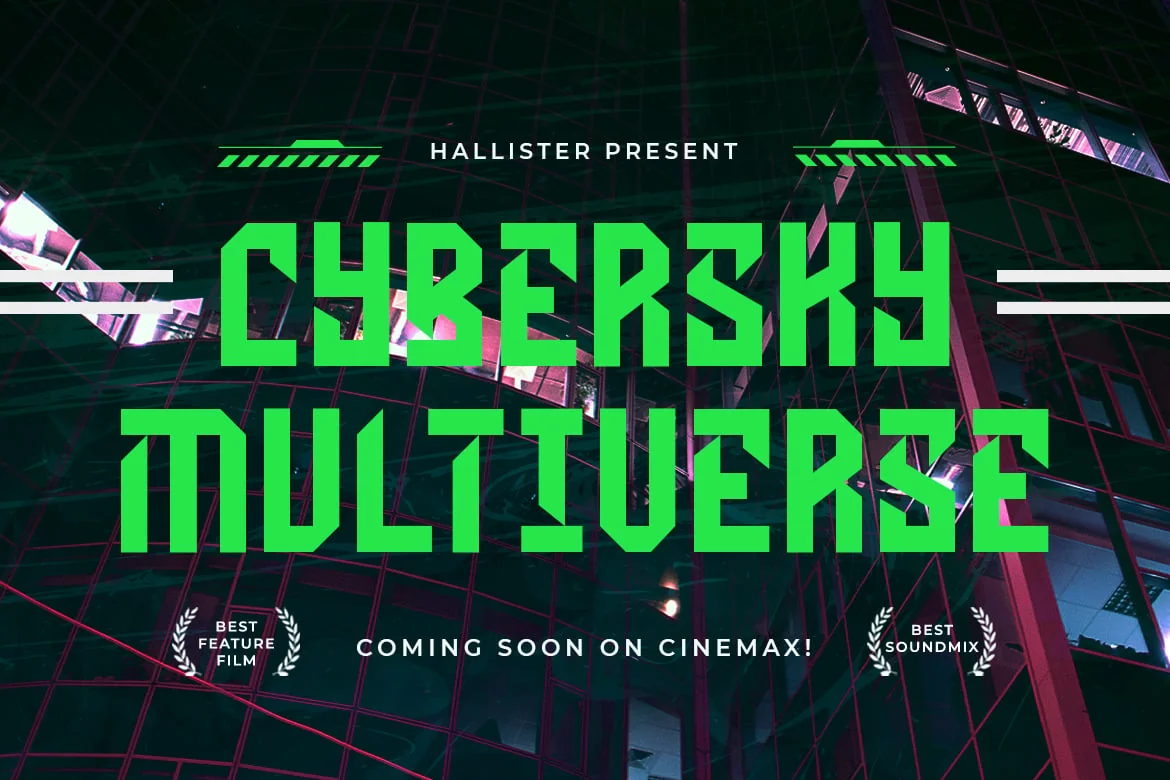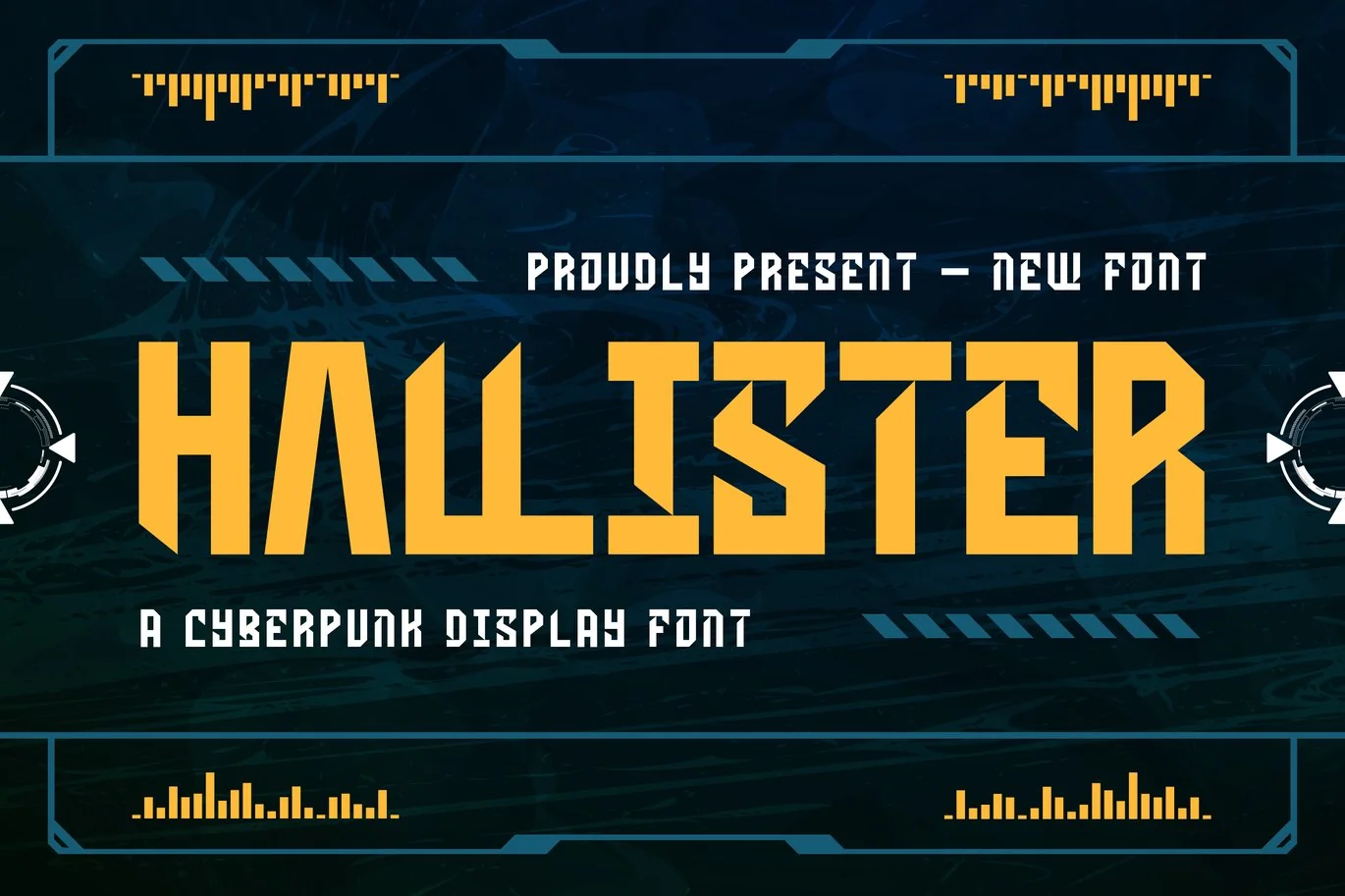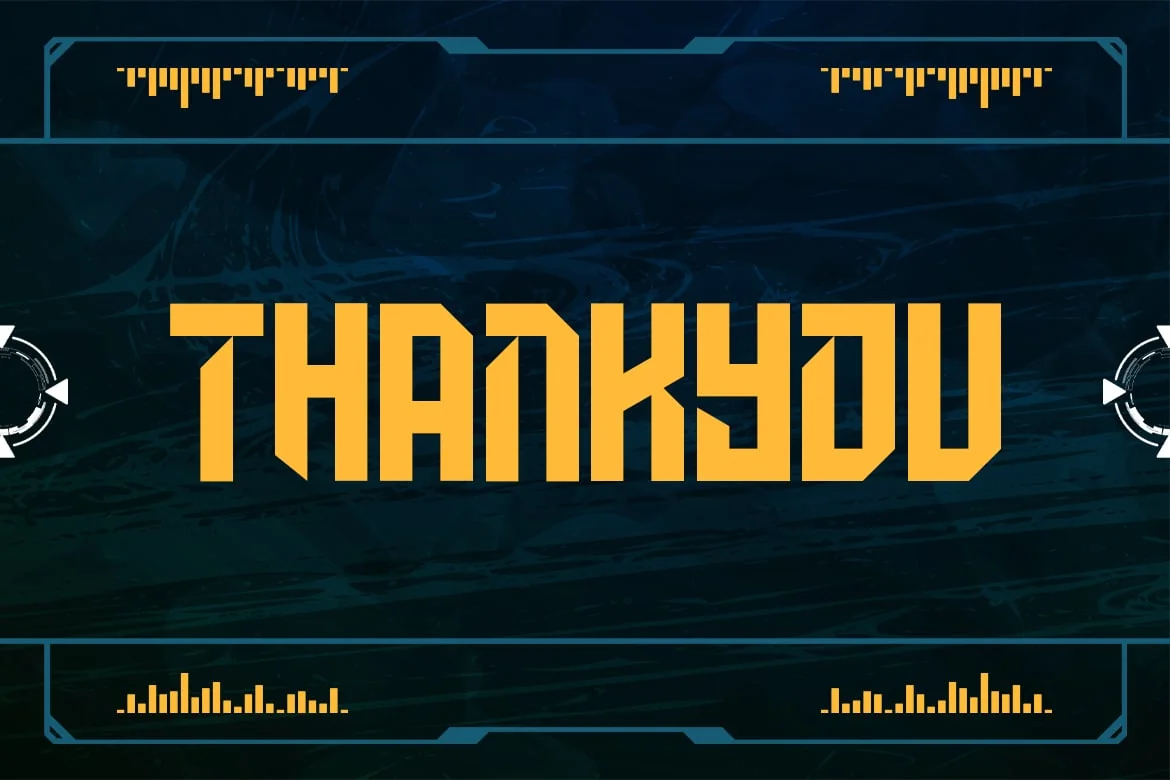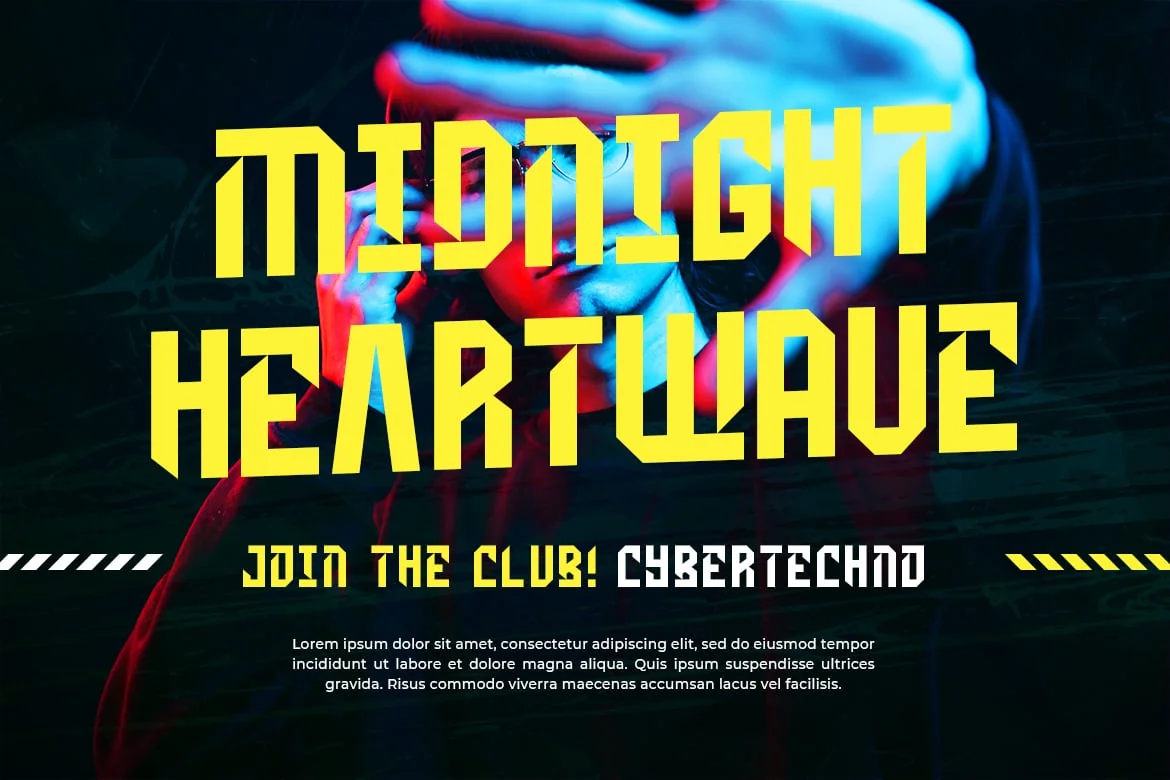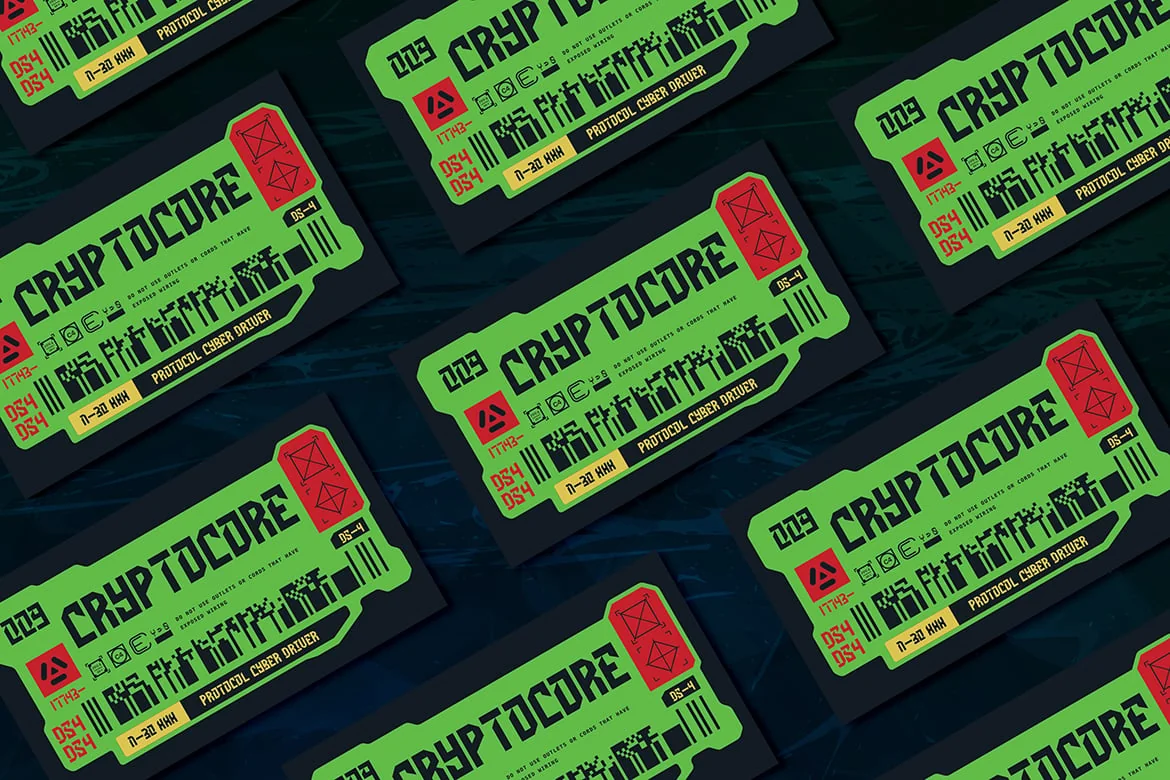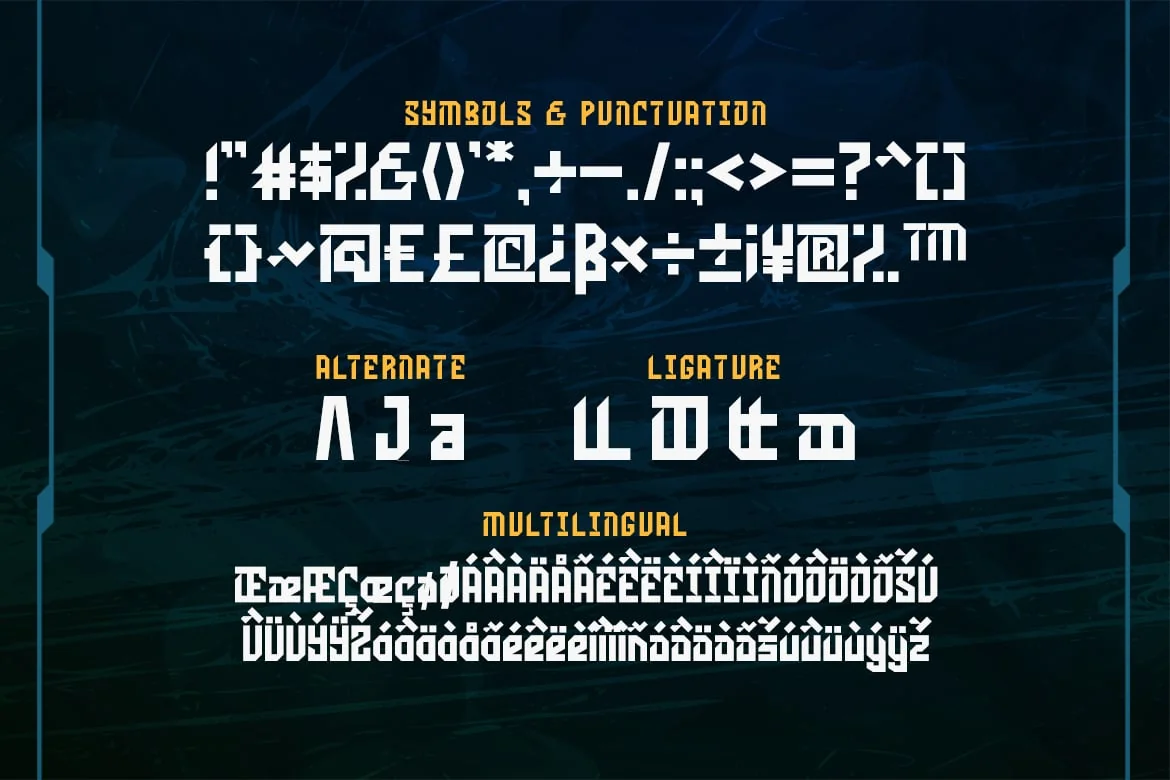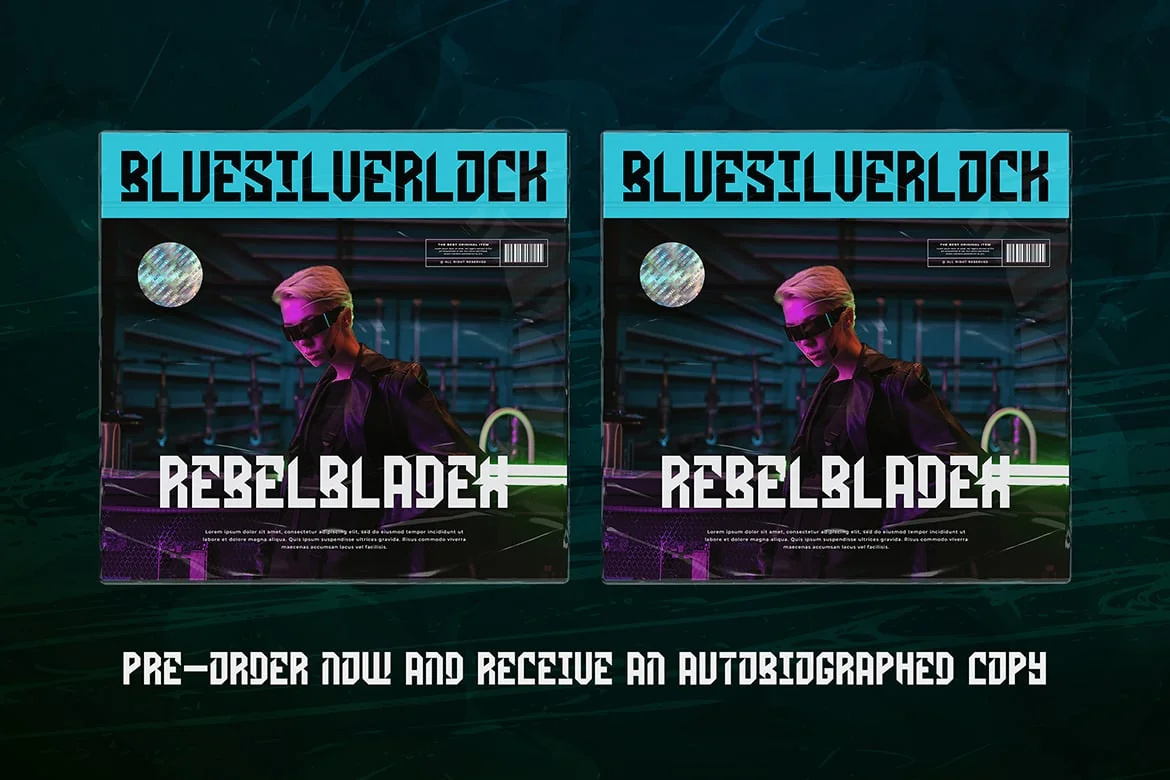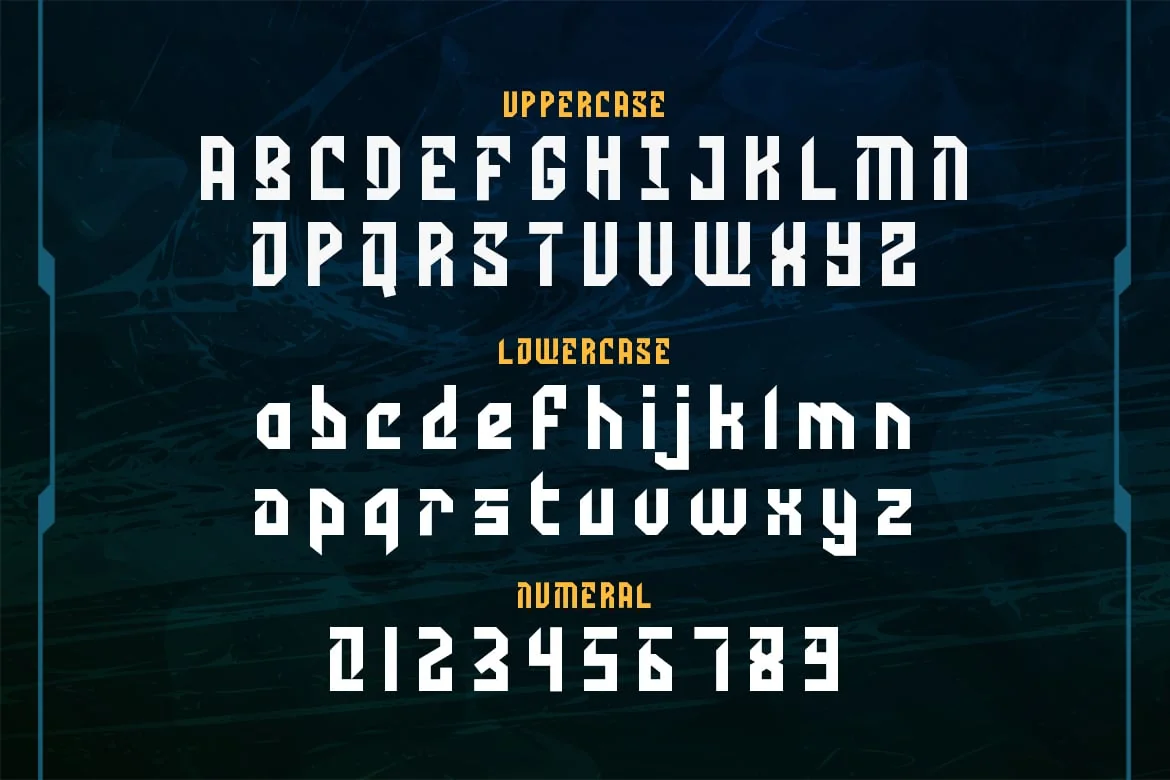
Hallister – A Cyberpunk Display Font
Introducing “Hallister” – a cyberpunk display font that channels the neon-lit energy and futuristic aesthetic of the cyberpunk genre, adding a gritty edge to your designs.
With its angular letterforms and glitchy details, “Hallister” captures the essence of cyberpunk culture, offering a bold and dynamic typographic solution for your projects. Whether you’re creating game interfaces, movie titles, tech blogs, or album covers, this font brings an unmistakable cyberpunk vibe to your designs.
Embrace the dystopian allure of “Hallister” as it effortlessly enhances your creations. With its edgy style and futuristic flair, this font transports your audience to a cybernetic world filled with neon lights and urban decay, ensuring that your designs make a powerful statement.
Step into the neon-lit streets of cyberpunk with “Hallister” and let your creativity run wild with its electrifying and avant-garde style.